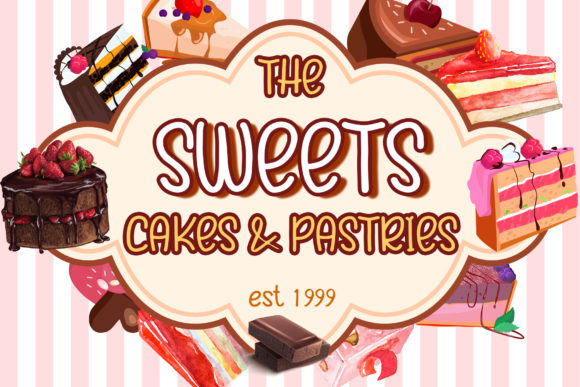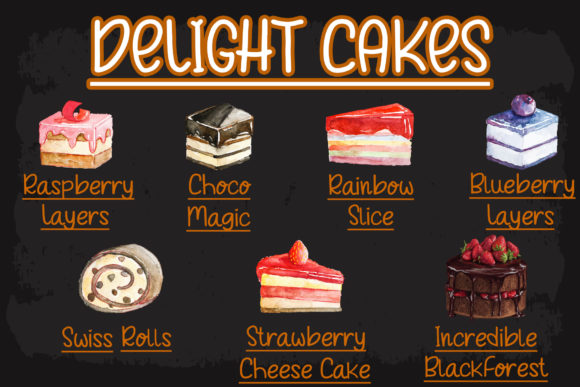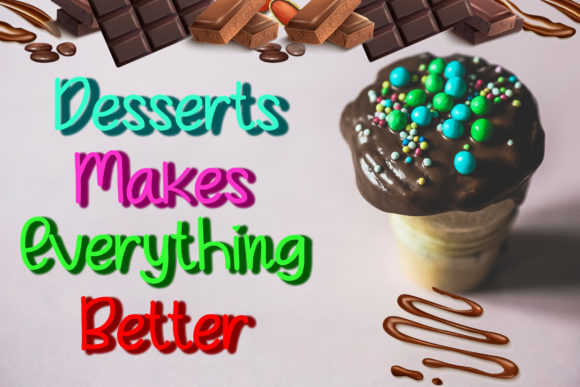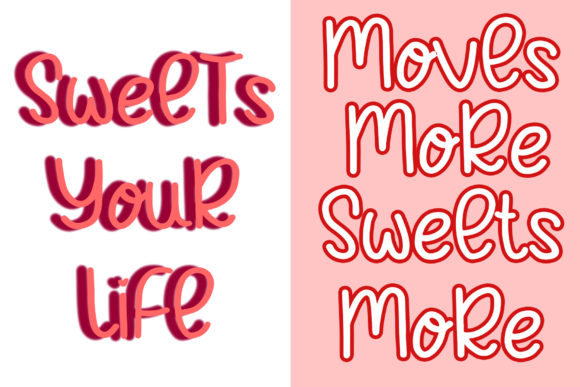
About Choco Cakes Font
Choco Cakes is a neat and friendly handwritten font. It is ideal for each of your delicious baking adventures. Suitable to a wide variety of designs due to its simple style, Choco Cakes has the potential to become your favorite go-to font, no matter the occasion!